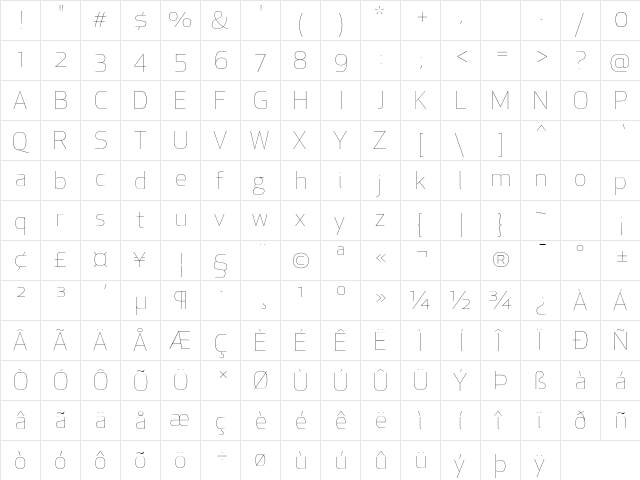
Apex New Thin
| Foundry | Village Type & Design LLC (Thirstype) |
| Designer | chester (orignally designed with Rick Valicenti) |
| Version | Version 1.001 2006, Revised version replacing Apex Sans |
Design Context for Apex New Typeface
Apex New is a composed and adaptable typeface that performs quietly and consistently across a wide range of design contexts. Its slender proportions lend an understated elegance to any composition.